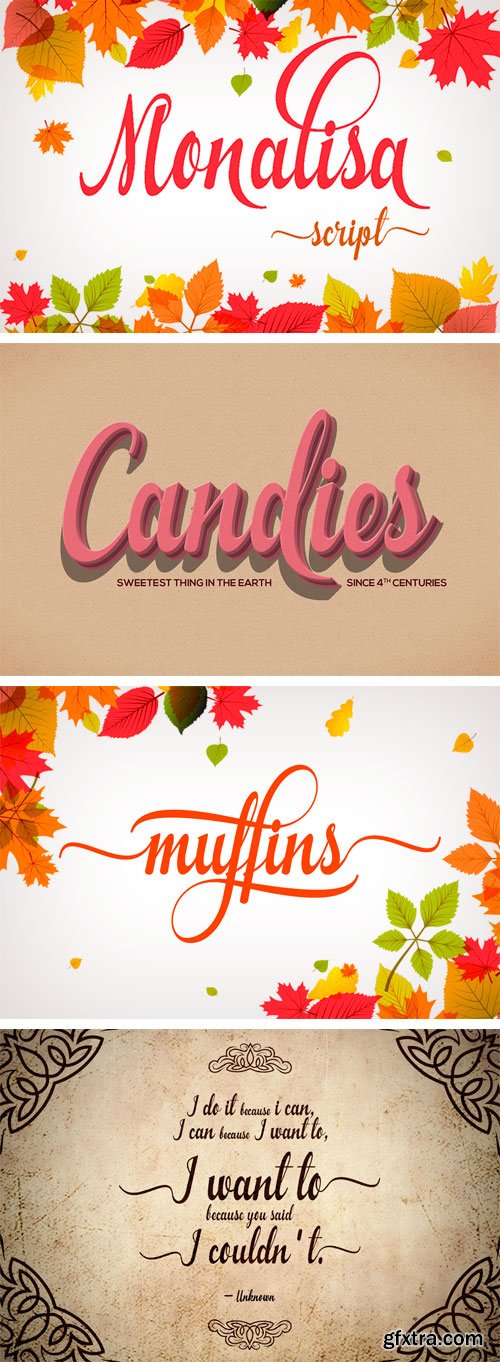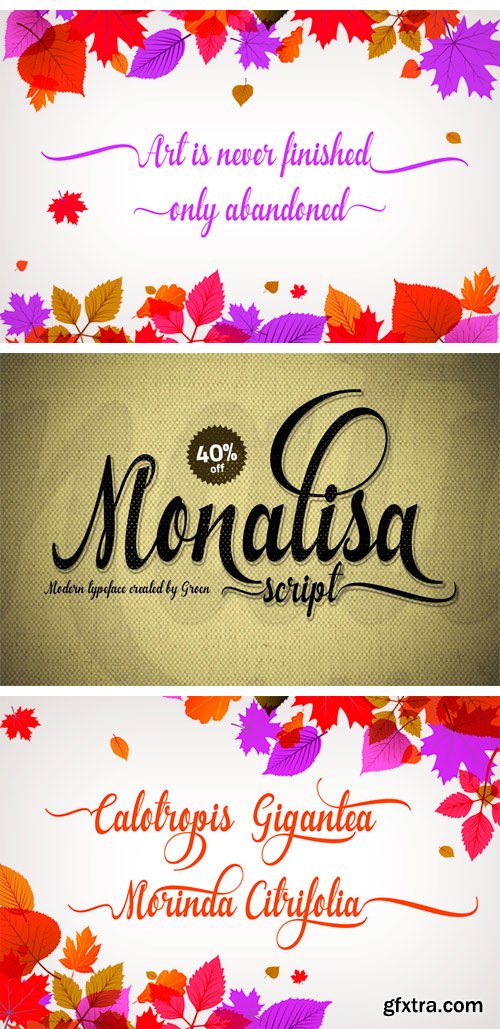
Monalisa is a script font that has the characteristic nature, it is very suitable
to make certain label and event business and you could be using for a unique piece.